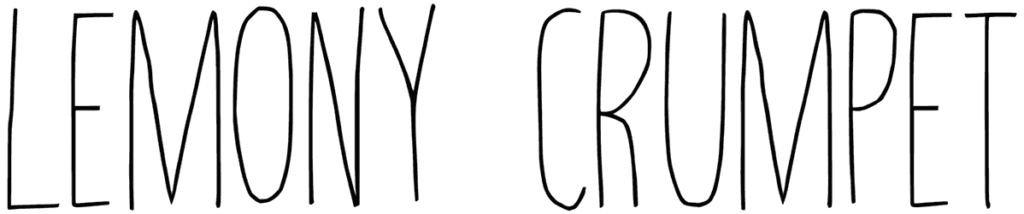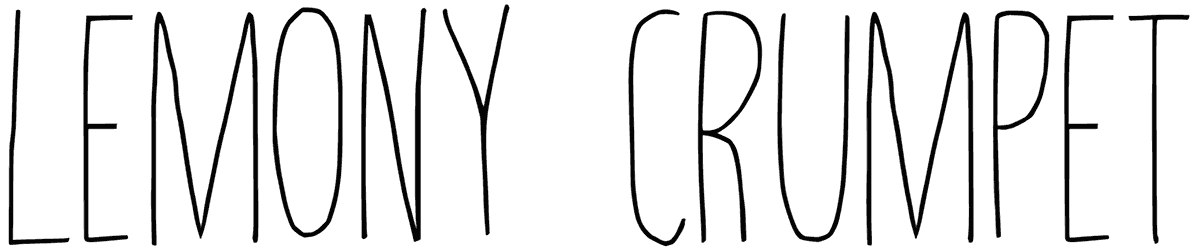
Lemony Crumpet Font
To have a handwritten font speaking on your behalf is one thing, but to end up with something as lovely as Lemony Crumpet is sheer luck. So let’s take this moment and admire its slim design, which is yet so impactful thanks to those tall characters of it.
Seize this chance to invite the innocence associated with childhood to your lettering and don’t let the absence of lowercase and half of the numbers stop you from creating adorable mugs and T-shirts.